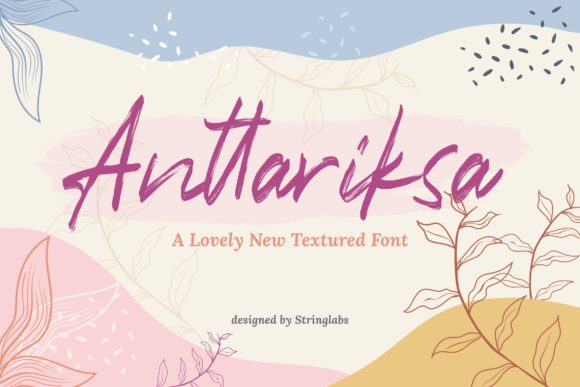
The Ultimate Guide to Anttariksa Font: Adding a Touch of Whimsy to Your Designs
I’ll never forget the time I was working on a branding project for a crafty client, and I just couldn’t find the perfect font to match their quirky vibe. I scrolled through page after page of Google search results, but nothing seemed quite right. That was until I stumbled upon Anttariksa Font – a casual, fun script font that instantly captured the essence of my client’s brand. In this article, I’ll share my experience with Anttariksa, its features, and how to make the most of it in your designs.
An Honest Review of Anttariksa Font
So, what makes Anttariksa so special? Let’s dive into the good stuff and a few quirks I’ve discovered.
What I Love About Anttariksa ✨
• ✅ Clean and quirky design: Anttariksa strikes the perfect balance between being clean and elegant while still having a playful edge.
• ✅ Brush pen feel: The font is created using a brush pen, which gives it a natural, hand-crafted look that’s perfect for DIY projects and crafty branding.
• ✅ Versatile: Whether you’re designing a logo, social media graphics, or a website, Anttariksa fits right in.
• ✅ Easy to read: Despite its playful nature, Anttariksa remains highly legible, making it suitable for both headlines and body text.
• ⚠️ Limited formal use: While Anttariksa is amazing for casual and creative projects, it might not be the best fit for more formal or corporate designs.
• ⚠️ Requires attention to spacing: Like many script fonts, Anttariksa can get a bit messy if the spacing isn’t adjusted properly. Make sure to tweak the tracking and kerning for optimal results.
The Story Behind Anttariksa
Anttariksa was created with the intention of capturing the carefree spirit of hand-lettering with a brush pen. The designer aimed to create a font that felt both personal and professional, making it perfect for a wide range of creative projects. Whether you’re a designer, crafter, or hobbyist, Anttariksa brings a touch of whimsy and charm to your work.
Font Name Anttariksa Font
Author StringLabs
Q: What type of projects is Anttariksa best suited for?
Anttariksa is ideal for casual and creative projects such as logos, branding, social media graphics, and DIY crafts. It’s perfect for adding a personal touch to your designs.
Q: Does Anttariksa support OpenType features?
Yes, Anttariksa supports OpenType features such as ligatures and stylistic alternates. You can access these features in compatible design software like Adobe Photoshop and Illustrator.
Q: Is Anttariksa suitable for body text?
While Anttariksa is primarily designed for headlines and titles, it can be used for short body text passages. However, for longer texts, a more traditional font might be more readable.